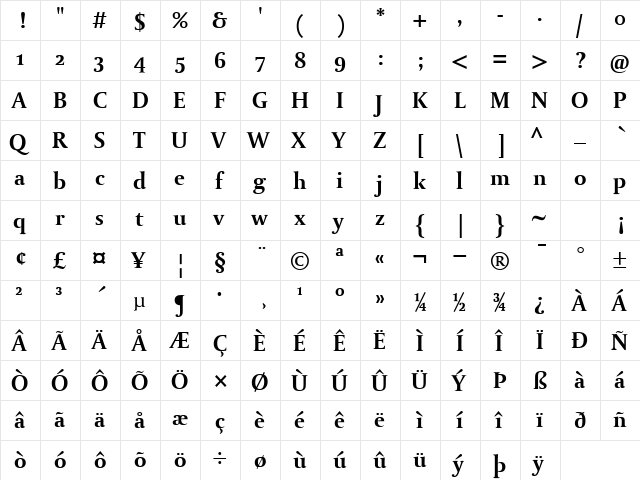
Paradox Dtl St Bold Regular Font Preview
Paradox Dtl St Bold Regular
Design Context for Paradox Dtl St Bold Typeface
Paradox Dtl St Bold is a composed and adaptable typeface that performs quietly and consistently across a wide range of design contexts. Its bold stroke weight gives it real presence on the page.